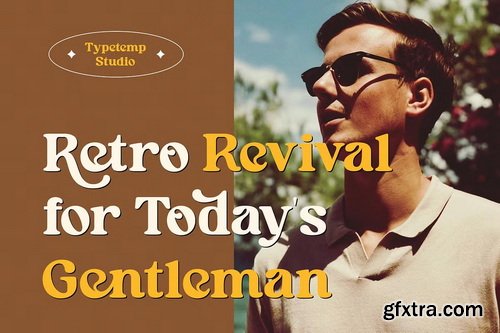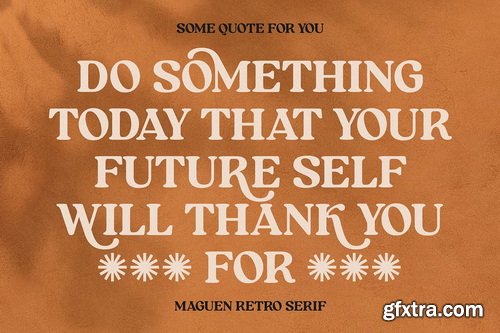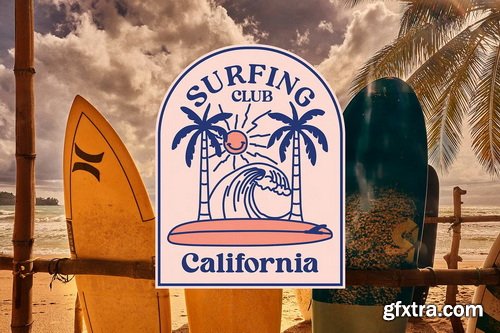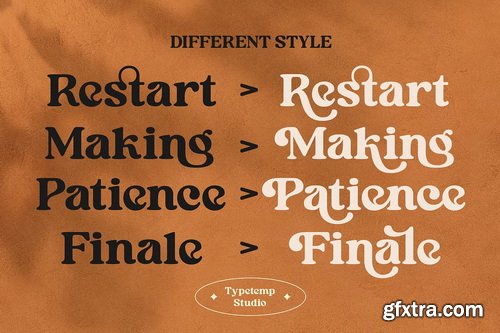
CreativeMarket - Maguen Modern Retro Display
Maguen Modern Retro Display a font with Graffity Bubble Style. Comes with alternatives and ligatures, helps to create stunning Posters, Branding, Tshirt, Social Media Graphics and much more.